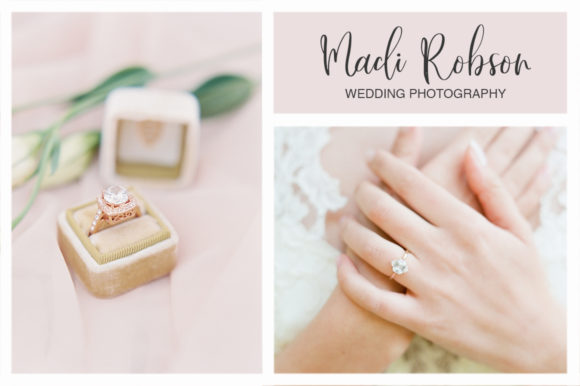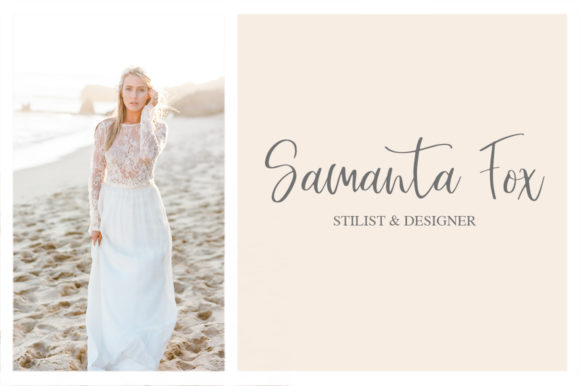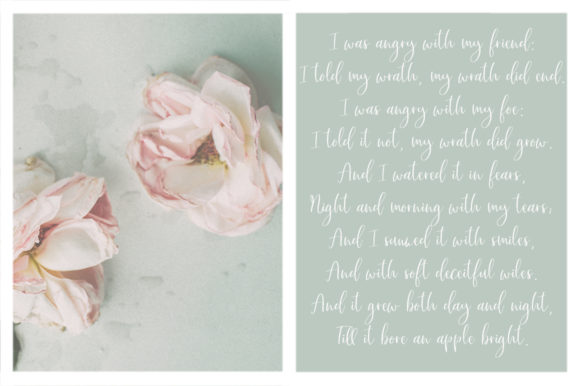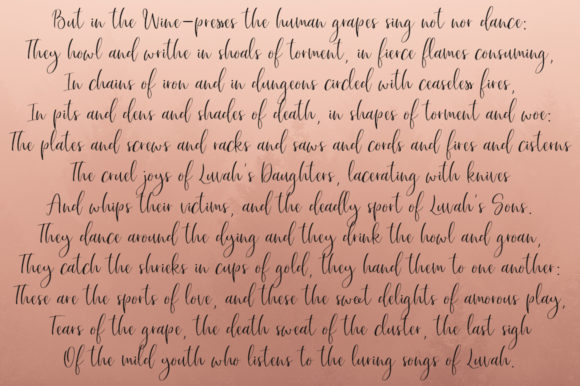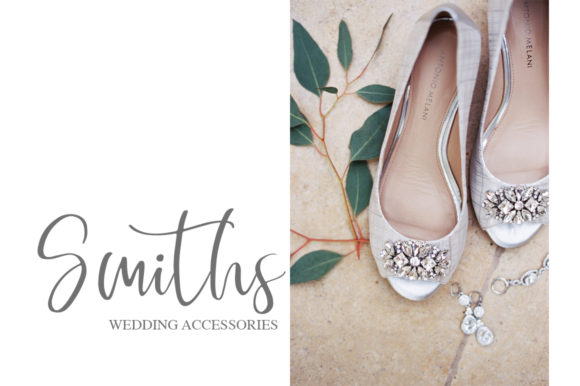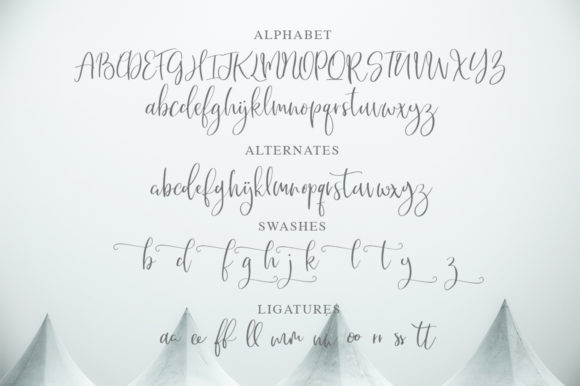
HomeScript FontsSolitude Font Script Fonts Solitude Font FacebookXPinterestWhatsApp Solitude Font Poster 2 Solitude Font Poster 3 Solitude Font Poster 4 Solitude Font Poster 5 Solitude Font Poster 6 Solitude Font Poster 7 About Solitude Font Solitude is a fresh and new script that will turn any crafting idea into a true piece of art. DOWNLOAD ON CREATIVE FABRICAThis font is sold and delivered by Creative Fabrica. Font Canyon may earn a commission if you buy through this link. People also explored Detha Rasigta Hello Chamia Font Rembow Font Mountain of Journey Font Anecmia Font Frankfruits Font Battams Font Ariela Font Floral Bloom Font 352 0 TagsSolitude Font Previous articleHome Sweet Home FontNext articleHomerun Script Font LEAVE A REPLY Cancel reply Comment: Please enter your comment! Name:* Please enter your name here Email:* You have entered an incorrect email address! Please enter your email address here Website: Save my name, email, and website in this browser for the next time I comment. Personal Use Free Just Love Personal Use Free Read more about this font Andolas Personal Use Free Read more about this font Awkward Personal Use Free Read more about this font Street Cred Personal Use Free Read more about this font BLOG Where to Buy American Fonts Online in 2024 Where to Buy American Fonts Online: The Ultimate Guide for 2024 Looking for the perfect American font to elevate your design projects? You're in the... How to Install and Use Fonts on Windows, macOS, and Web Projects Free vs Paid Fonts: Why Investing in Premium Fonts Is Worth It Modern Sans-Serif Fonts That Brands Love in 2025